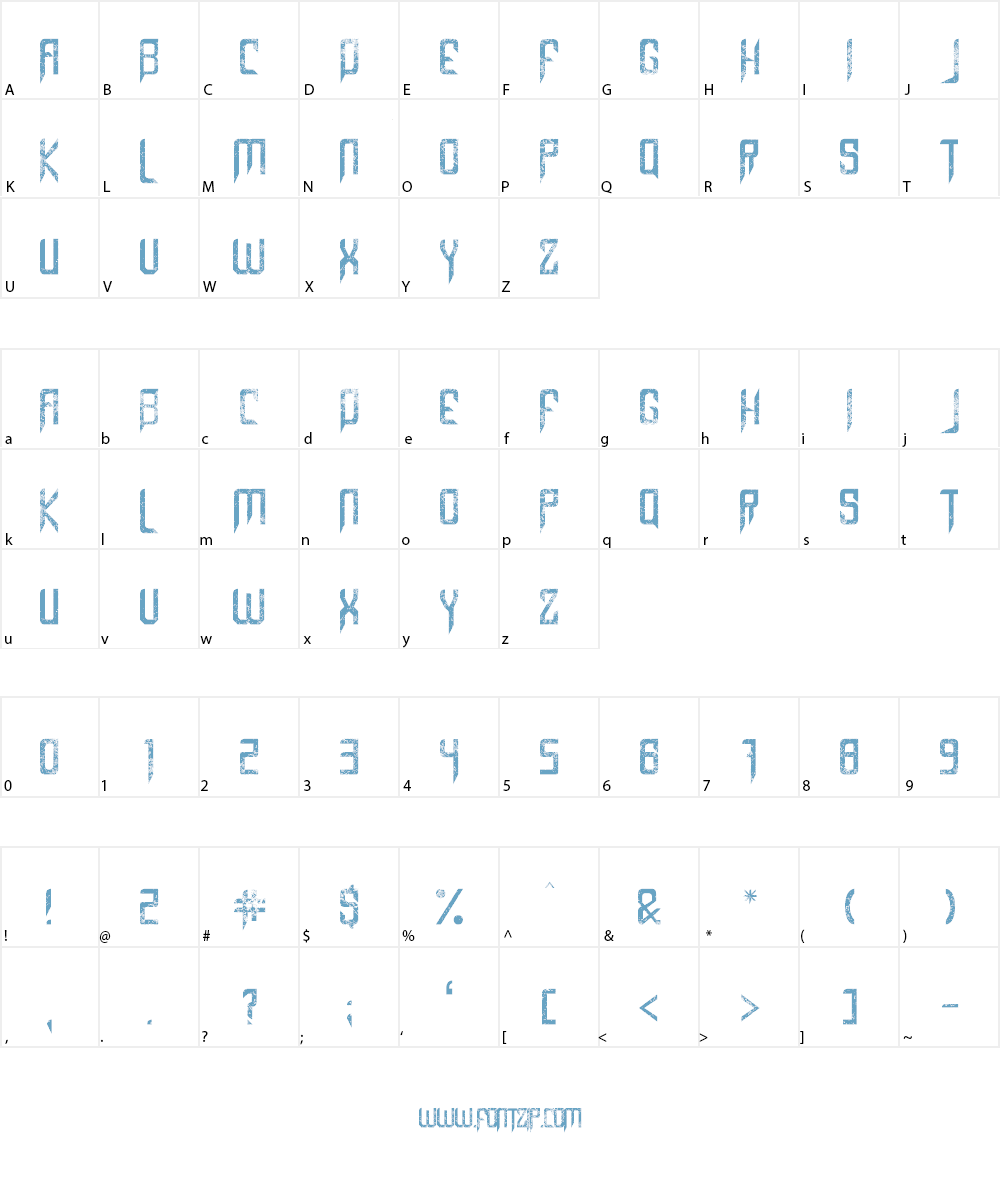
Capella (Rock) ™ III is a font of LJ-Design Studios.
Descended from the font "Capella (Rock) 2"
It is ideal for extreme sports combined on commercials and music primarily in genre Rock, Metal, Dark, metal rap and its variants.
Designed by Luis Jaramillo and Luis Alberto Rosalez for LJ-Design Studios. (c) 2014
Capella (Rock) ™ III es una fuente tipográfica de LJ-Design Studios.
Descendiente de la Fuente tipografica "Capella (Rock) 2"
Es ideal para combinar en anuncios deportivos extremos y principalmente en la música de genero Rock, Metal, Dark, metal rap y sus variantes.
Diseñada por Luis Jaramillo y Luis Alberto Rosalez para LJ-Design Studios. (c) 2014
Designed by; Luis Jaramillo
Digitized and illustrated by; Luis Alberto Rozalez
Diseñada por; Luis Jaramillo
Digitalizada por e ilustrada por; Luis Alberto Rozalez